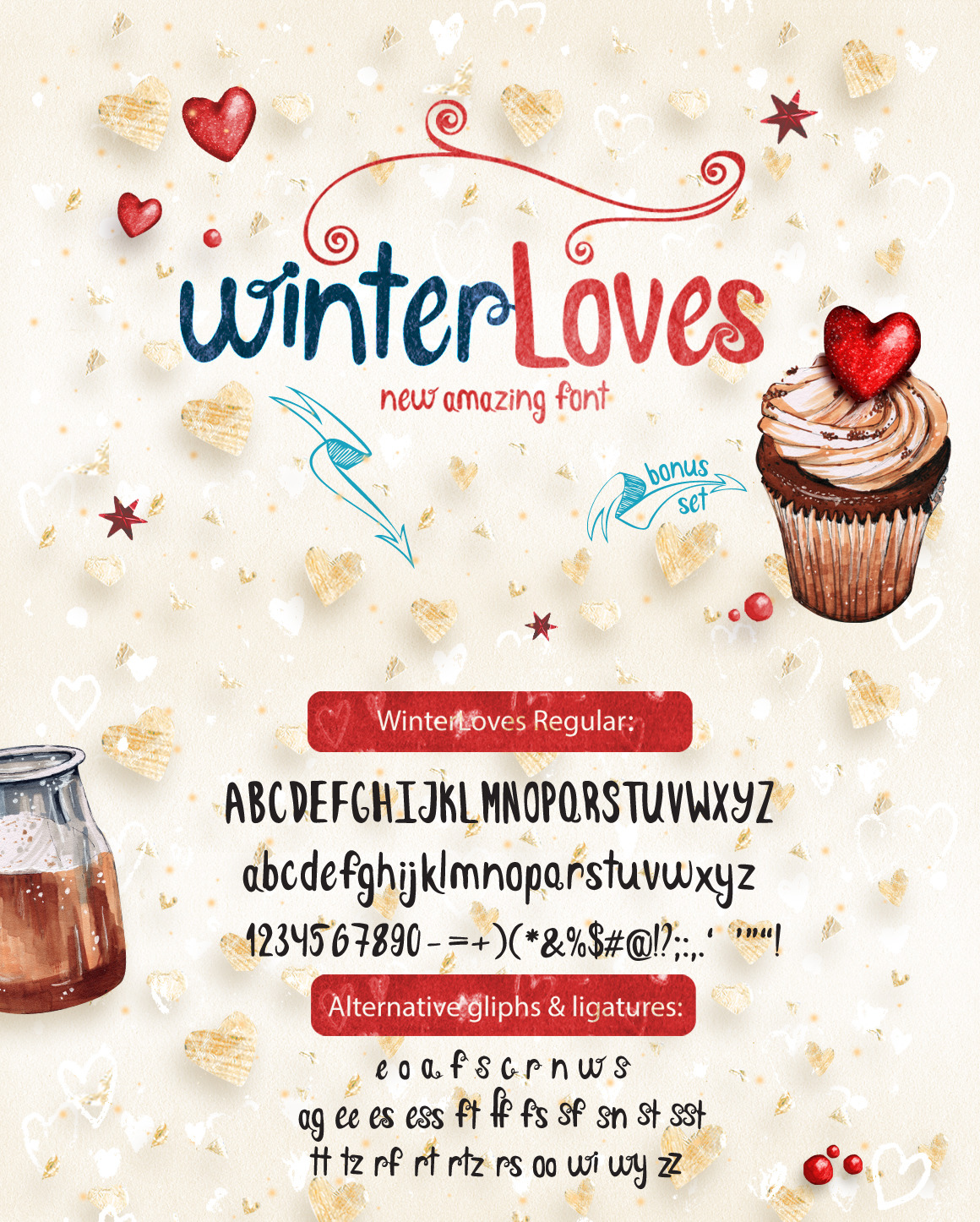
Happy to present your fabulous new winter font "WinterLoves".
In font included alternative spellings and ligatures. All the symbols you can see by opening the first sheet preview. In addition to the font included in the set is made